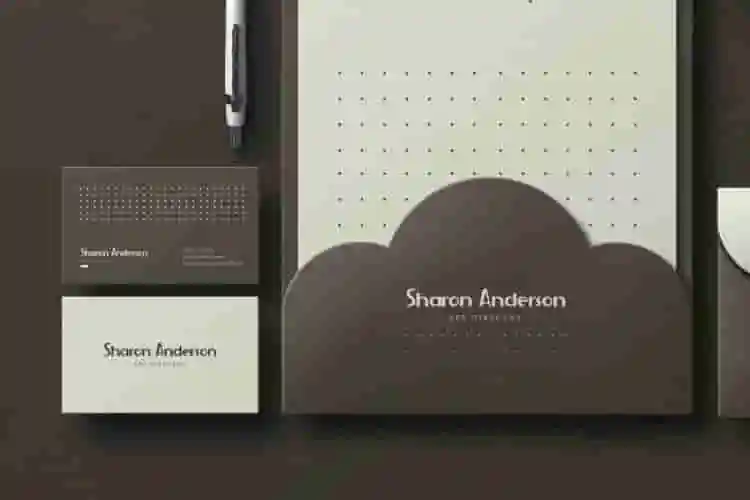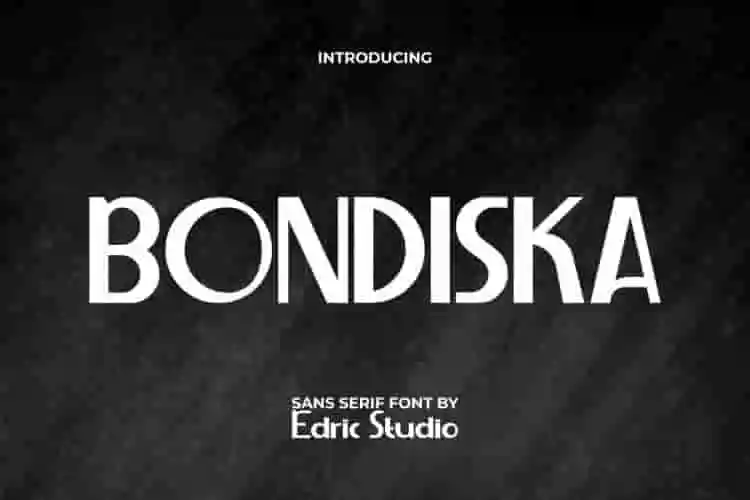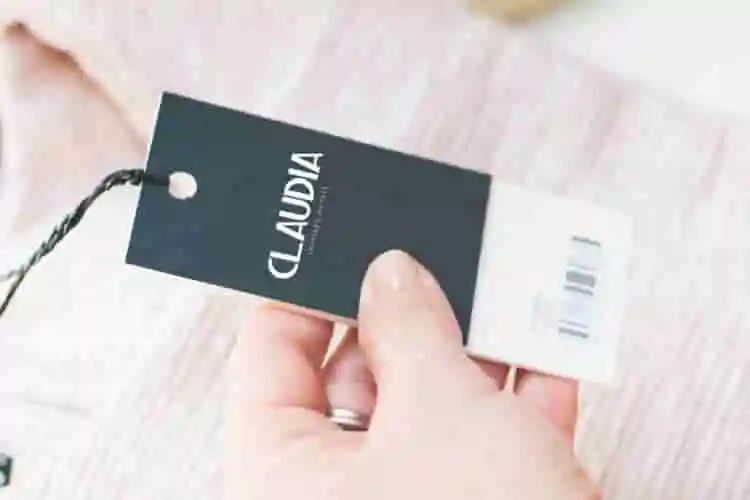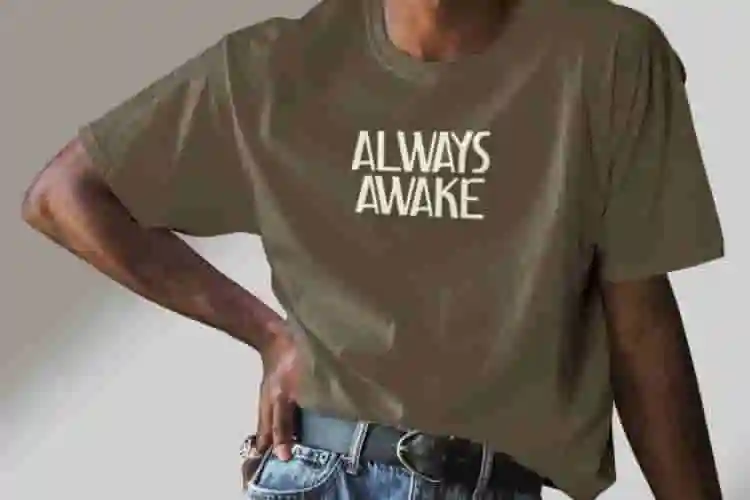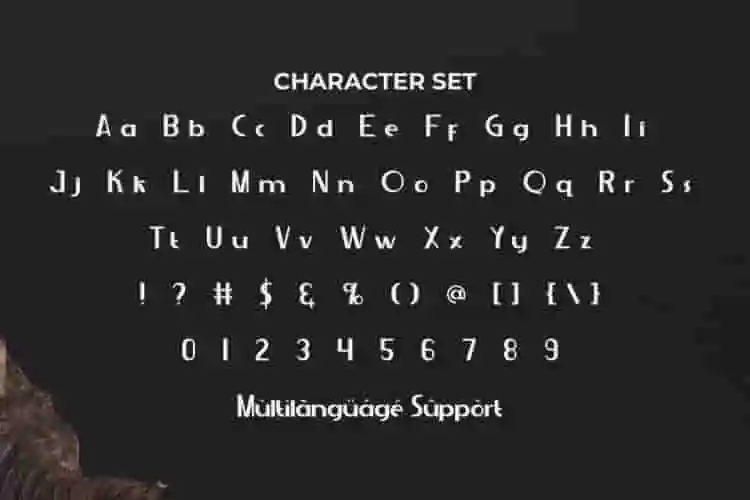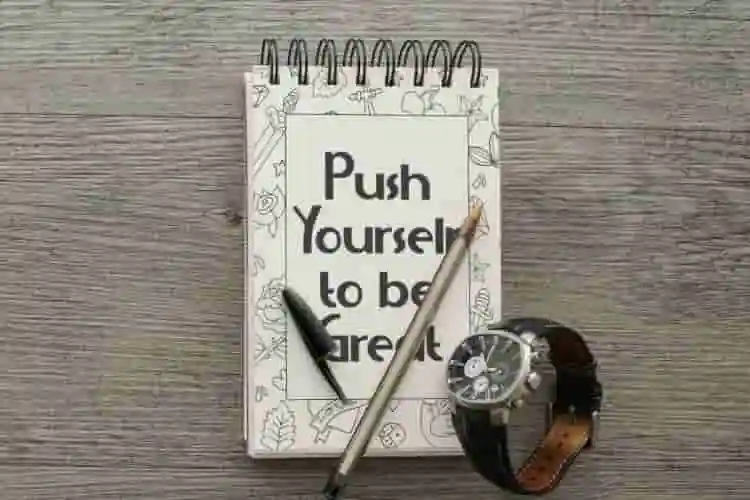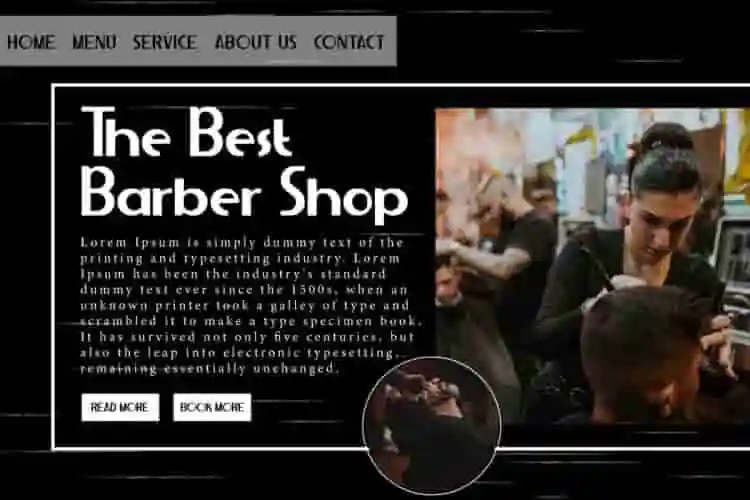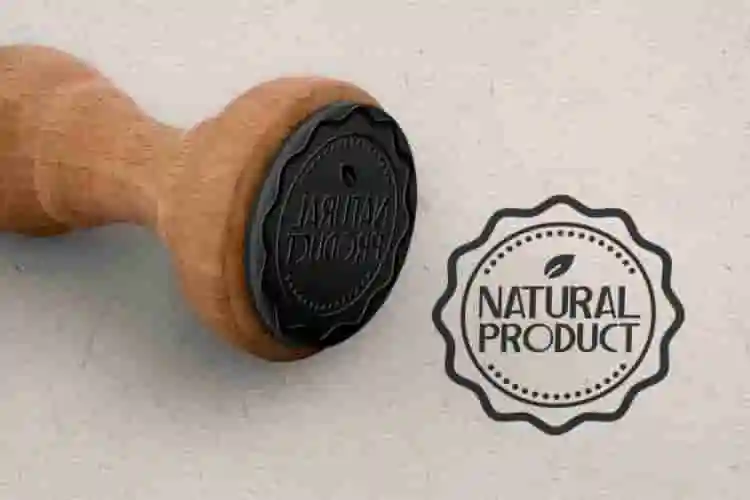
Bondiska Trendy Display Font
Bondiska Font is a sans serif display font with trendy style and it can fit in many design projects, so it can make any display stand out and attract attention. It will be suitable for any industry or business, such as accessories, art, barber shop, café, entertainment, event organizer, fashion, handicraft, photography, printing, publishing, writer, and many more!
Bondiska Font comes with full set of Uppercase and Lowercase Basic Characters, Number, a large range of Punctuation, and Symbol. It has a attractive characters set, perfectly managed with well spaced and kerning. Bondiska Font will be able to complement for any design (with extended license) including: brand image, cover, custom design, label, merchandise, packaging design, poster, quote, screen print, signage, stationery, sticker, title, website, etc.
Looking for a font that instantly grabs attention and oozes modern style? Meet Bondiska, a bold and trendy display font designed to make your headlines pop and your brand unforgettable.
With strong geometric shapes and sleek letterforms, Bondiska brings a futuristic edge to logos, posters, packaging, social media graphics, and editorial layouts. It’s the perfect choice when you want your typography to take center stage.
If your design needs bold energy and a cutting-edge look, Bondiska is the font you’ve been waiting for. This trendy display font blends modern geometry with creative flair, giving your work a strong, stylish personality.
• Bold & Stylish Aesthetic
• All-Caps Typeface